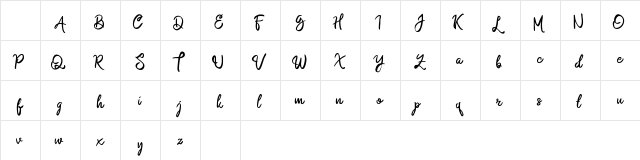
Namasia is a composed and adaptable typeface that performs quietly and consistently across a wide range of design contexts.
Pro Tip: Use Namasia in both headline and body roles to test its range before committing to a single application.